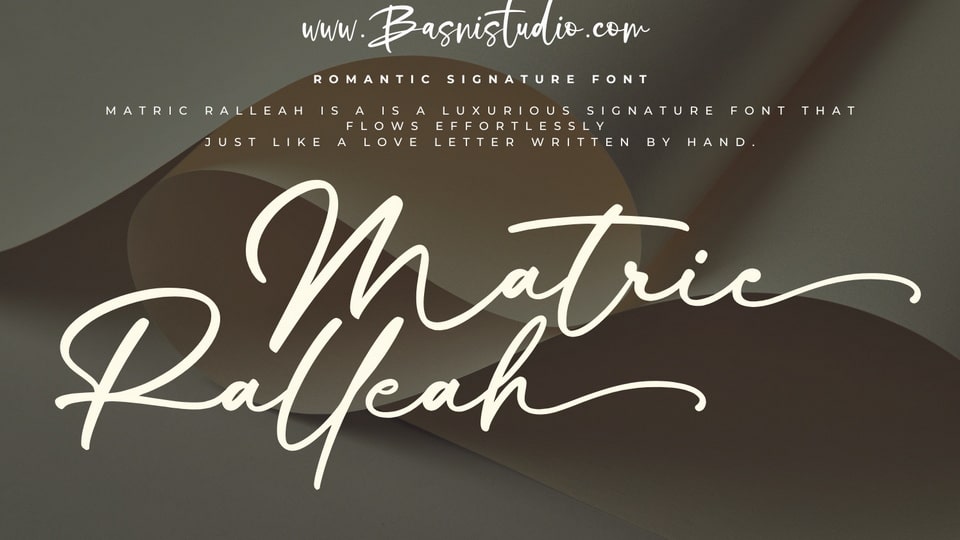
Download Matric Ralleah font, a luxurious signature typeface that flows effortlessly, just like a love letter written by hand. Perfect to add a touch of sophistication to any project.